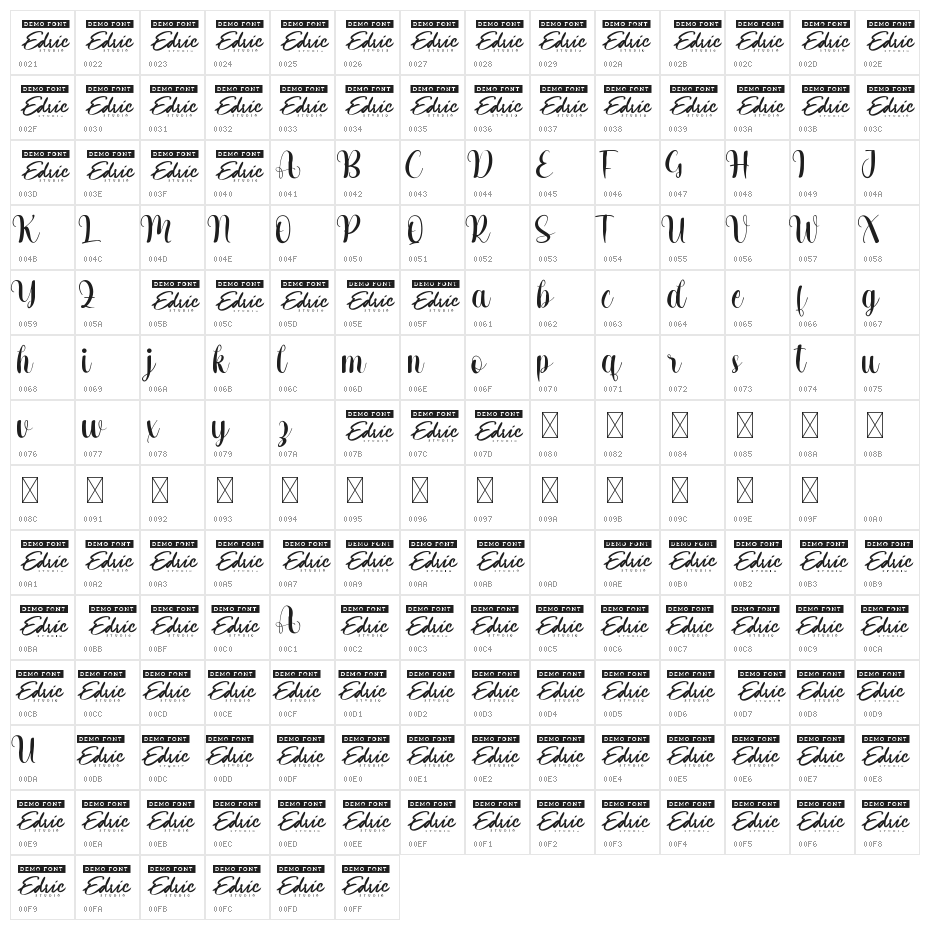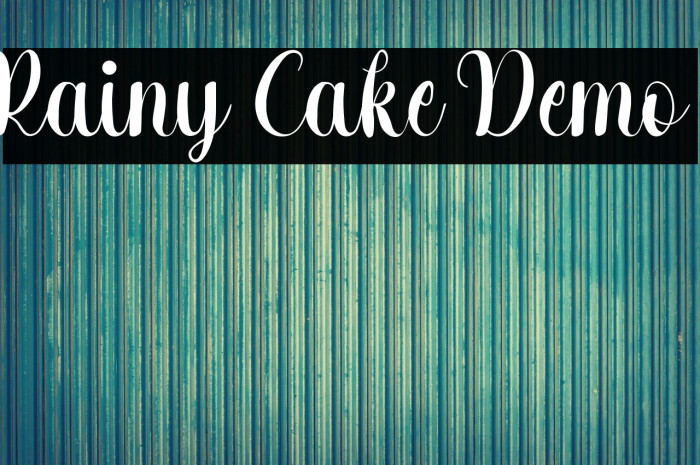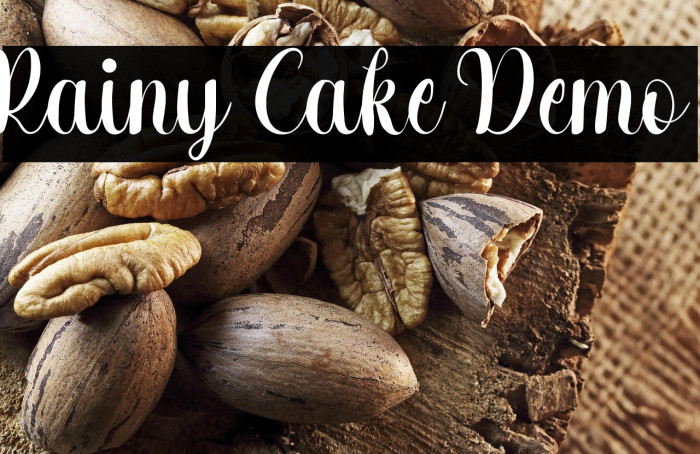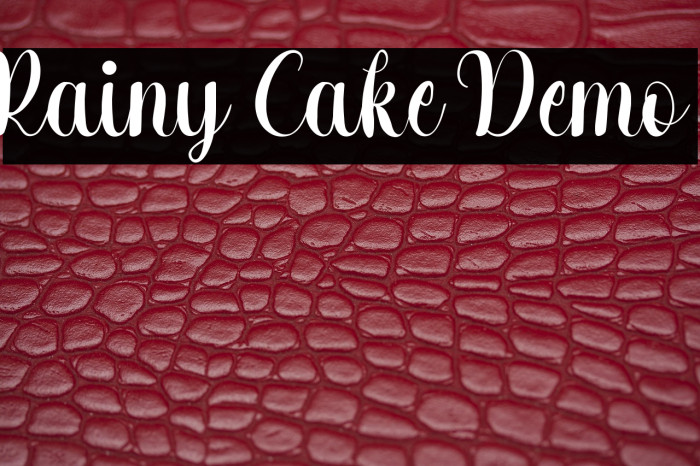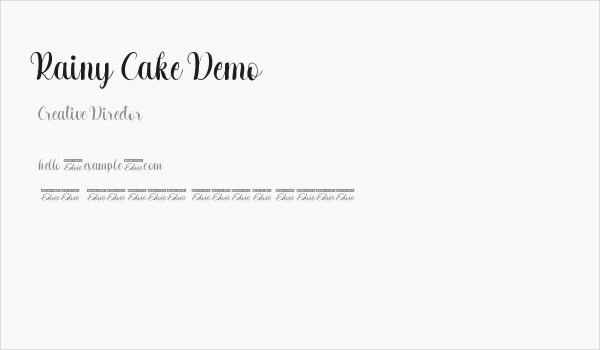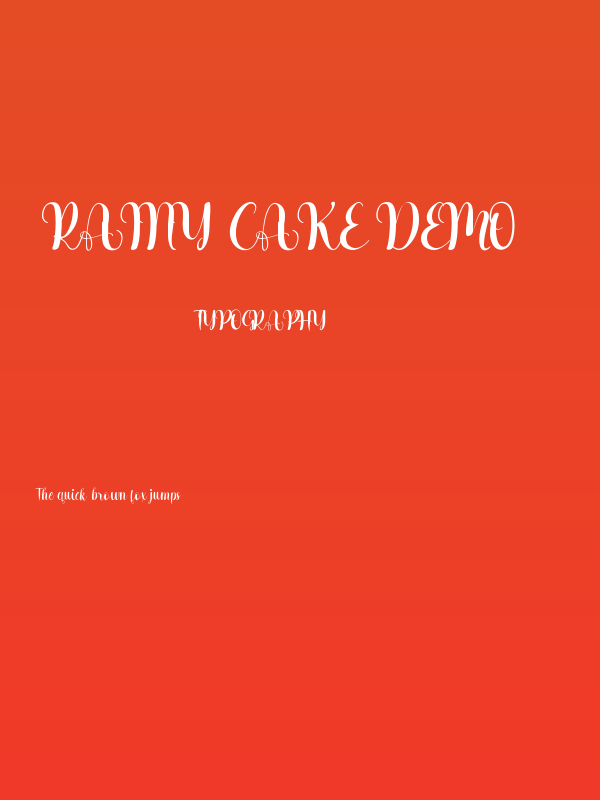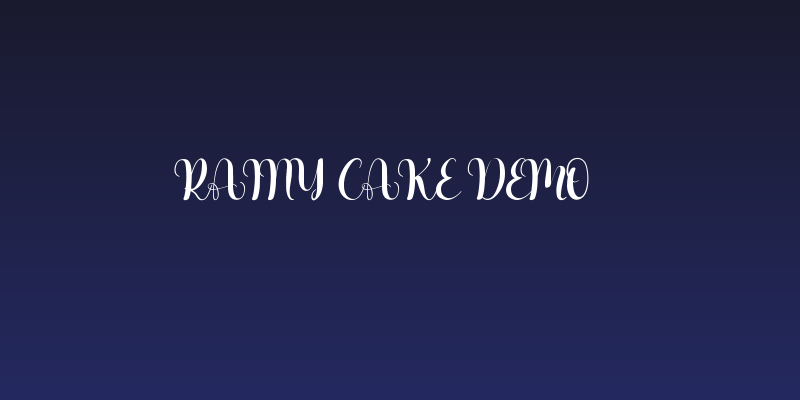
Rainy Cake Demo Font
Rainy Cake Demo Description
This font features a stylish and elegant script design with a flowing, cursive style. The characters are interconnected, creating a seamless and fluid appearance. The uppercase letters are bold and prominent, while the lowercase letters maintain a consistent flow with delicate loops and curves. The font exudes a sense of sophistication and grace, making it ideal for projects that require a touch of elegance. The strokes are moderately thick, providing a balanced contrast that enhances readability while maintaining an artistic flair.
Overall StyleElegant
Use CaseLogos, Invitations, Branding
Proposed ProjectsIdeal for wedding invitations, greeting cards, branding, and elegant logo designs.